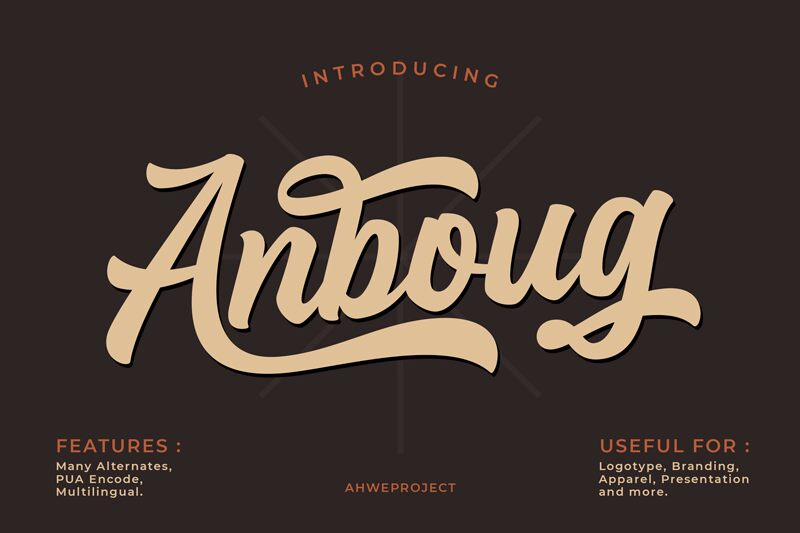
Anboug-Regular
Anboug, a smooth brush semi-bold font designed by Ahwe Project, adds a touch of elegance and sophistication to any project. Perfect for invitations, wedding stationary, and other formal designs, Anboug’s flowing strokes create an air of romance and beauty. Use this typeface for fashion branding and editorial designs to elevate the aesthetic of your work. Anboug is also versatile enough for social media graphics, packaging design or anything that needs a touch of personality. With its unique character and seamless curves, Anboug will make your projects stand out from the crowd.